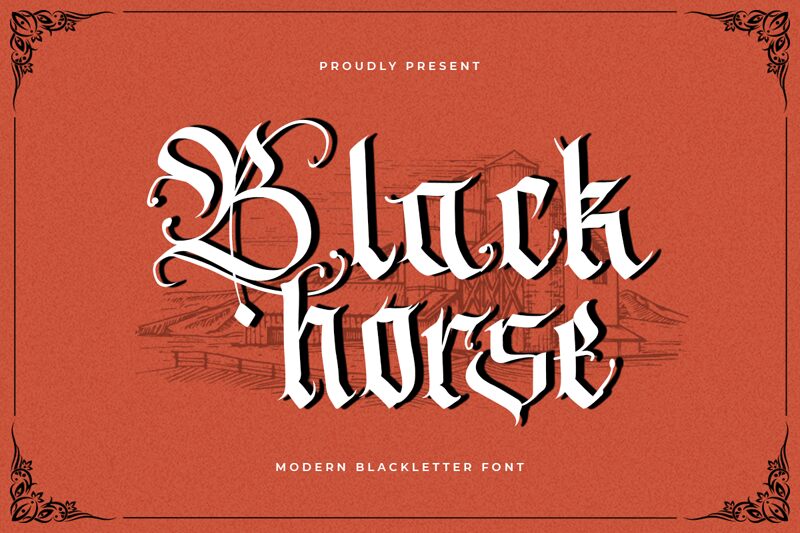
Blackhorse font by Kong Font is a medieval presentation of gothic typography. This historic calligraphy design is characterized by ornate, intricate detailing and traditional influence beneath a modern layer. Let tradition inspire your next projects with this decorative font!
Posters, stickers, labels are all possibilities with Blackhorse as well as everything from logos and book covers to app/game designs. Websites, social media posts, banners and other online uses also welcome Blackhorse’s presence and the striking aspect that this free type brings to the table.